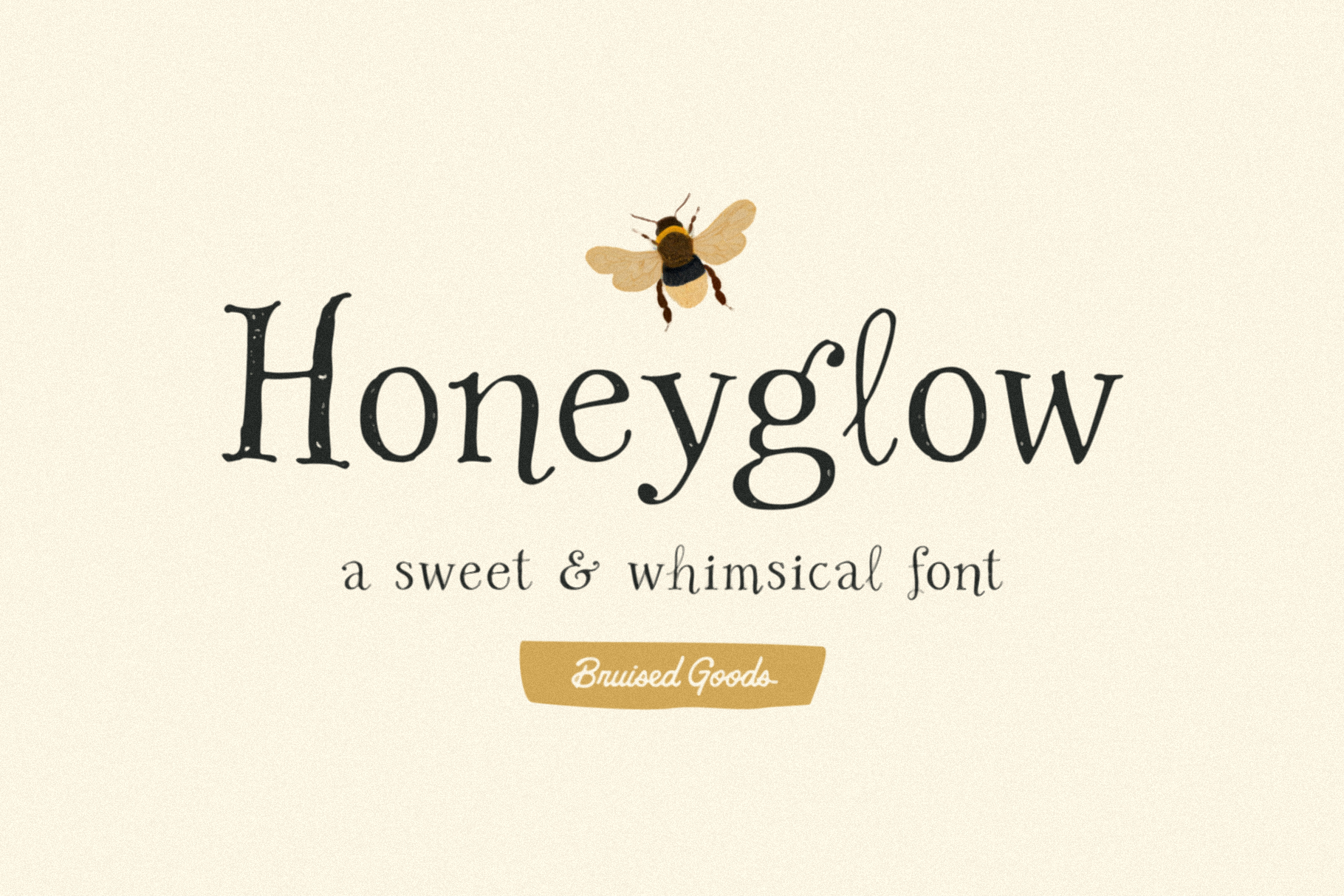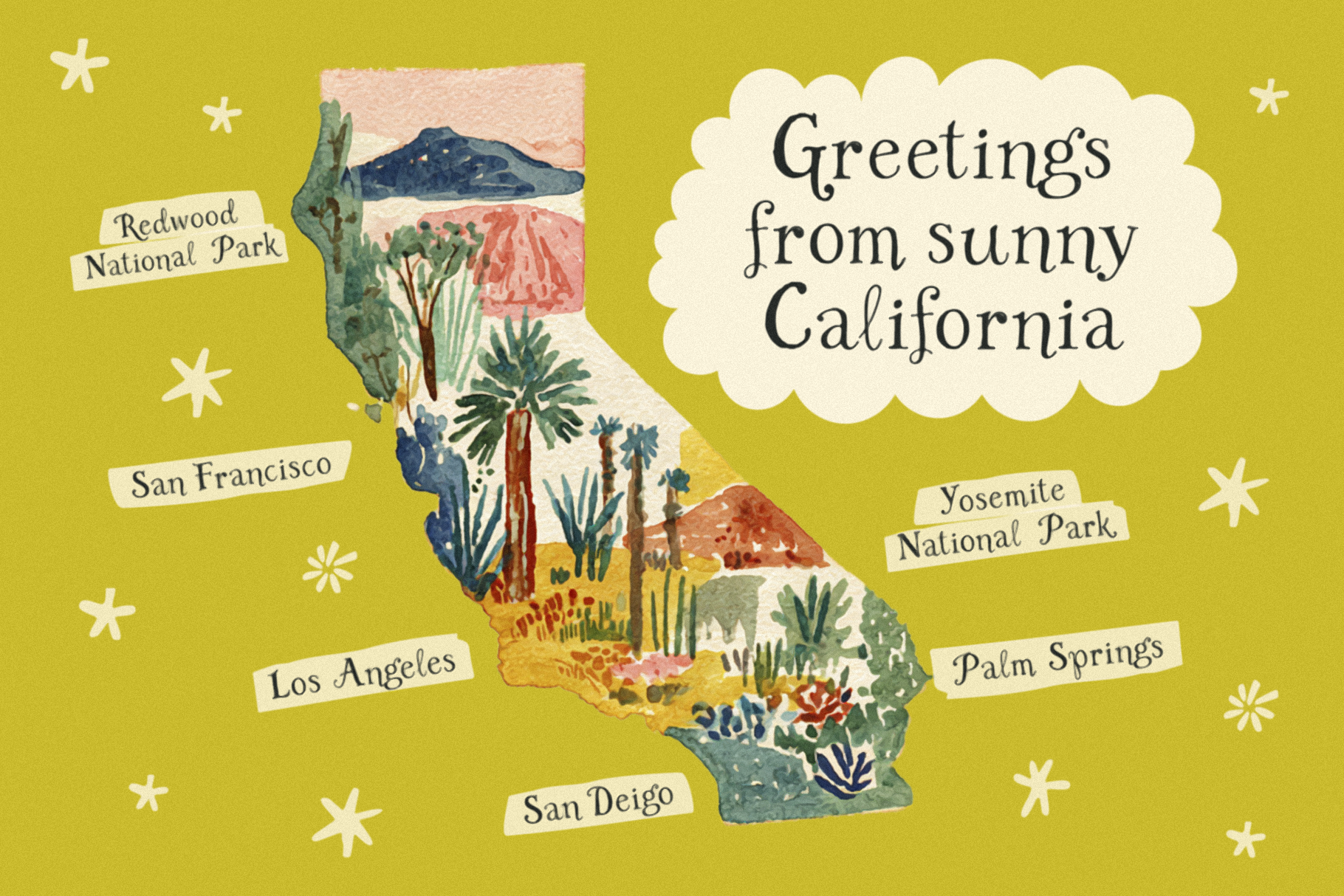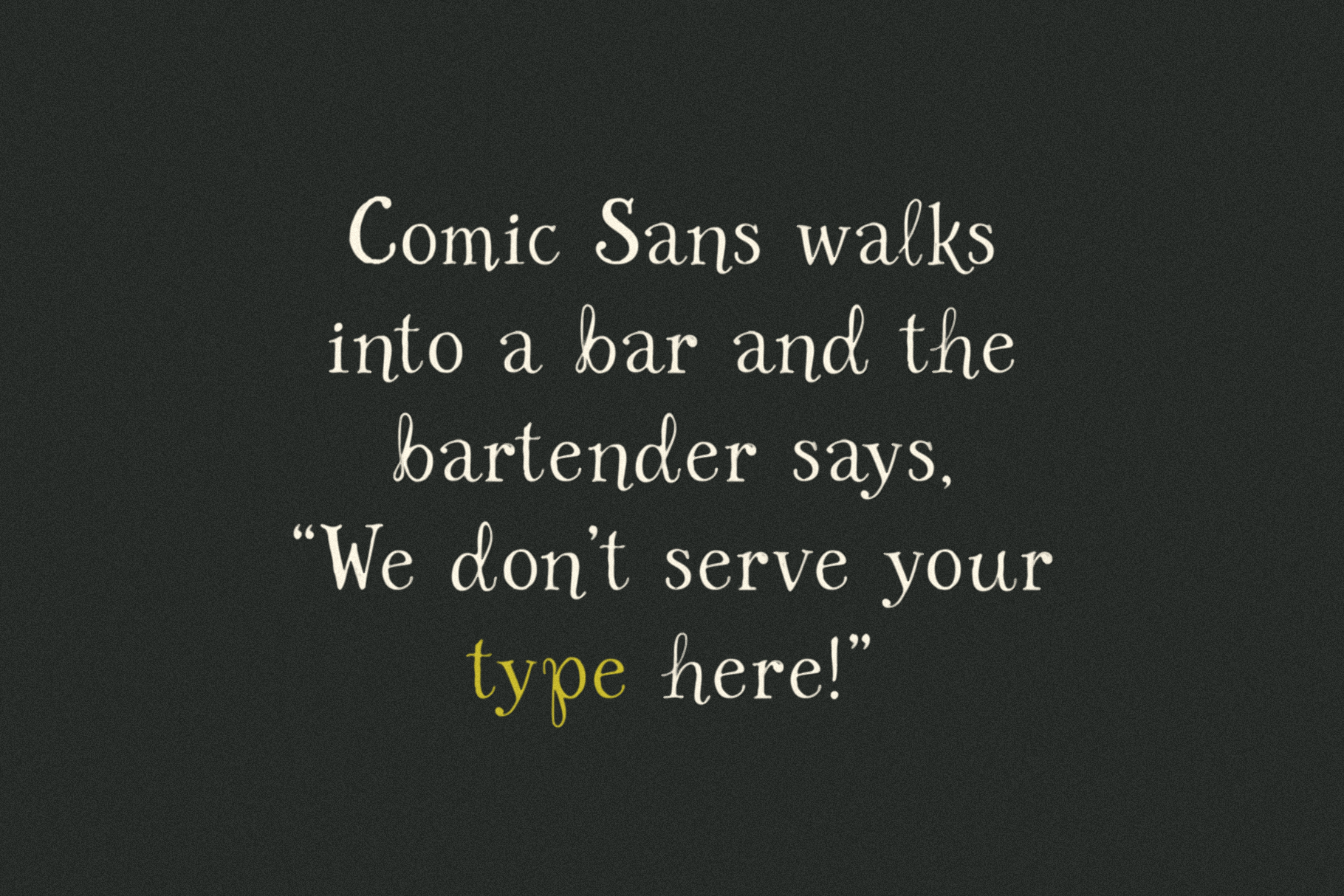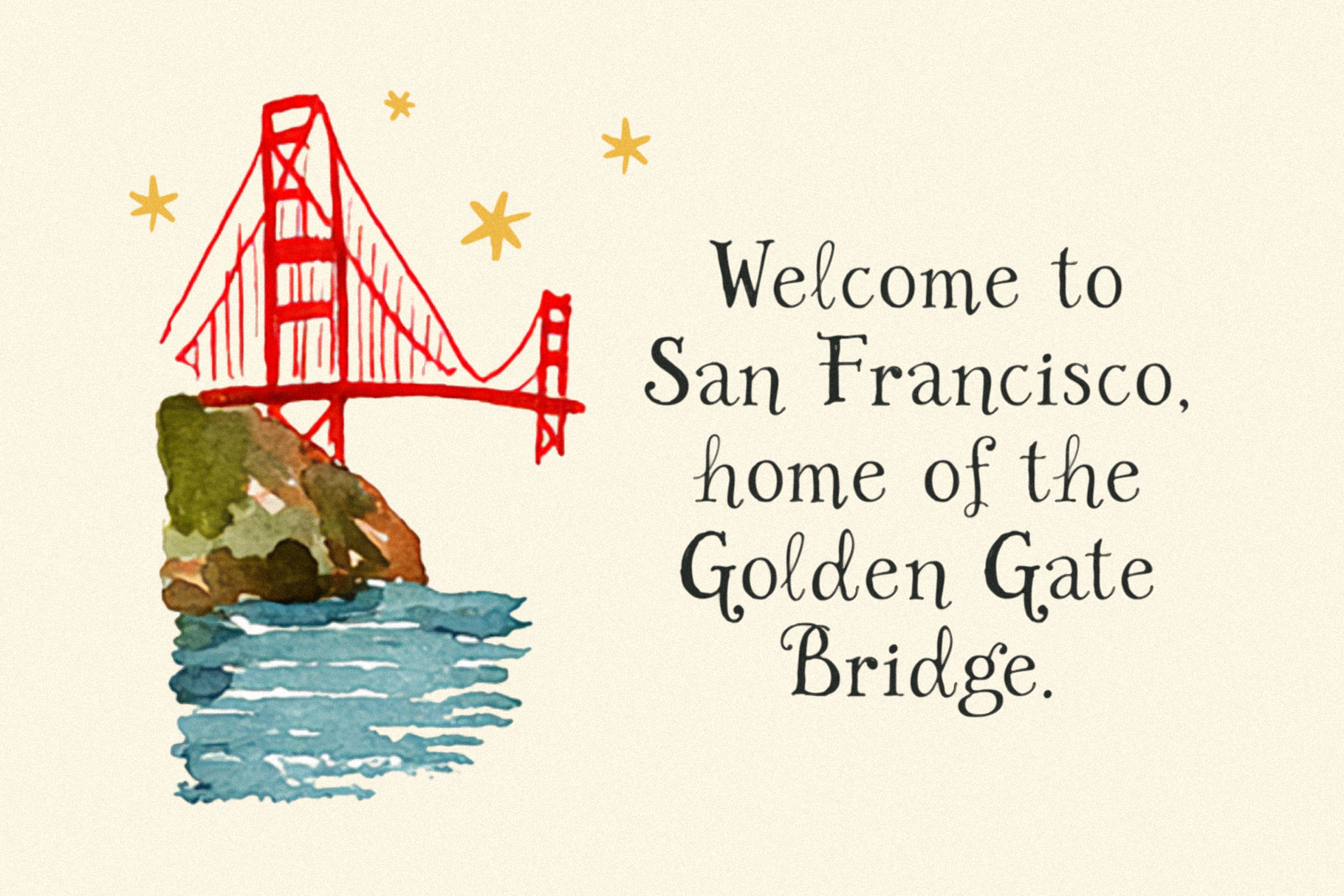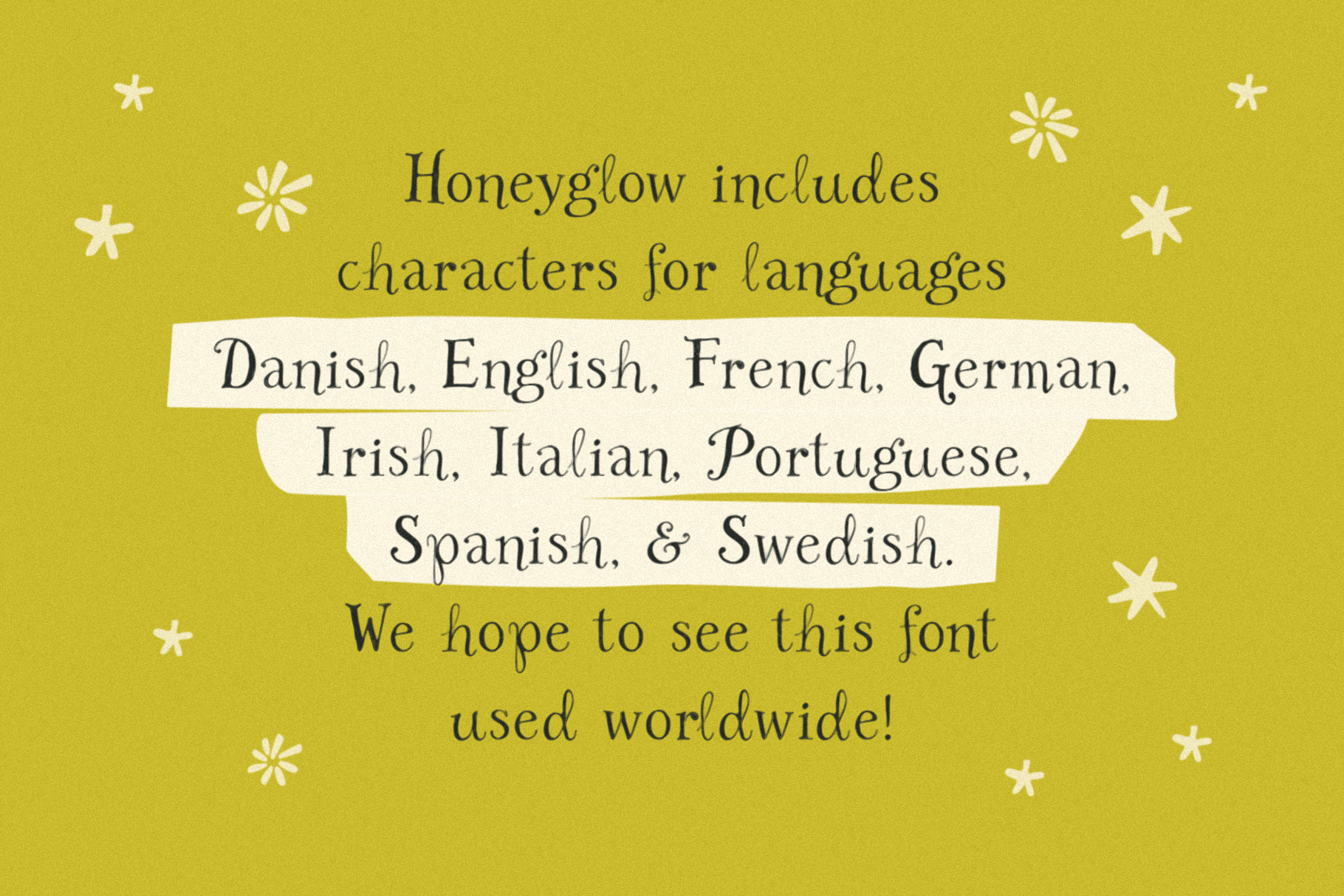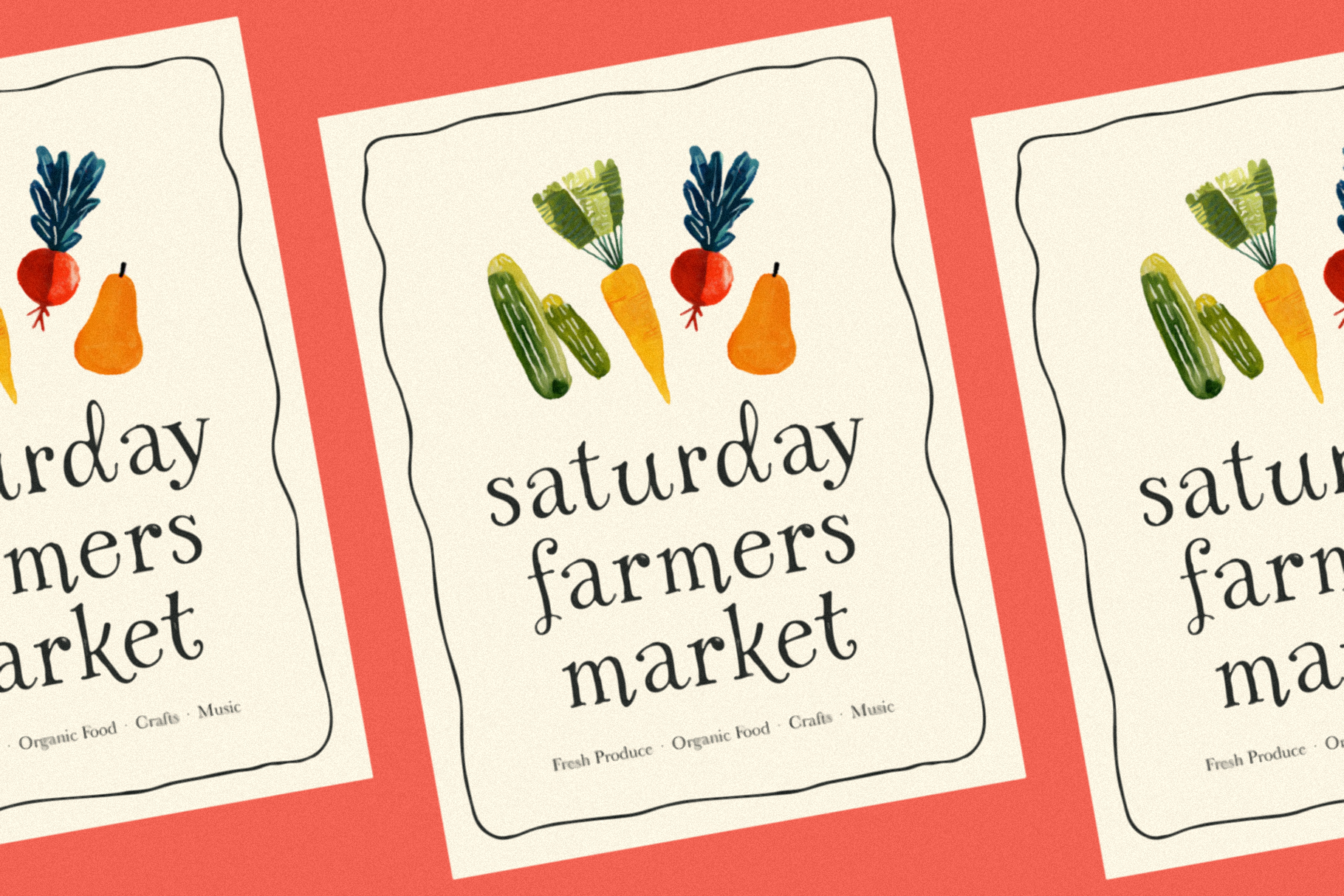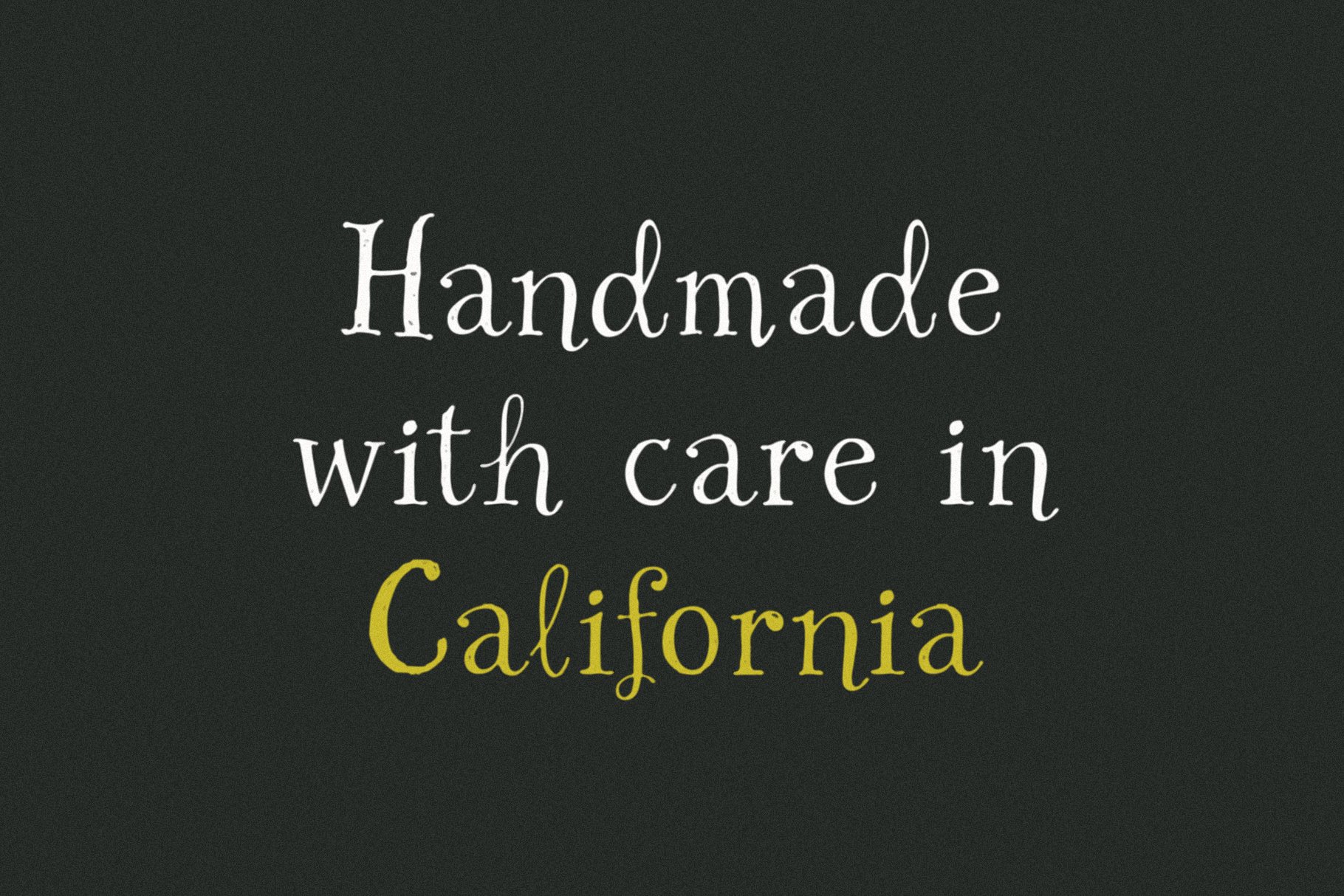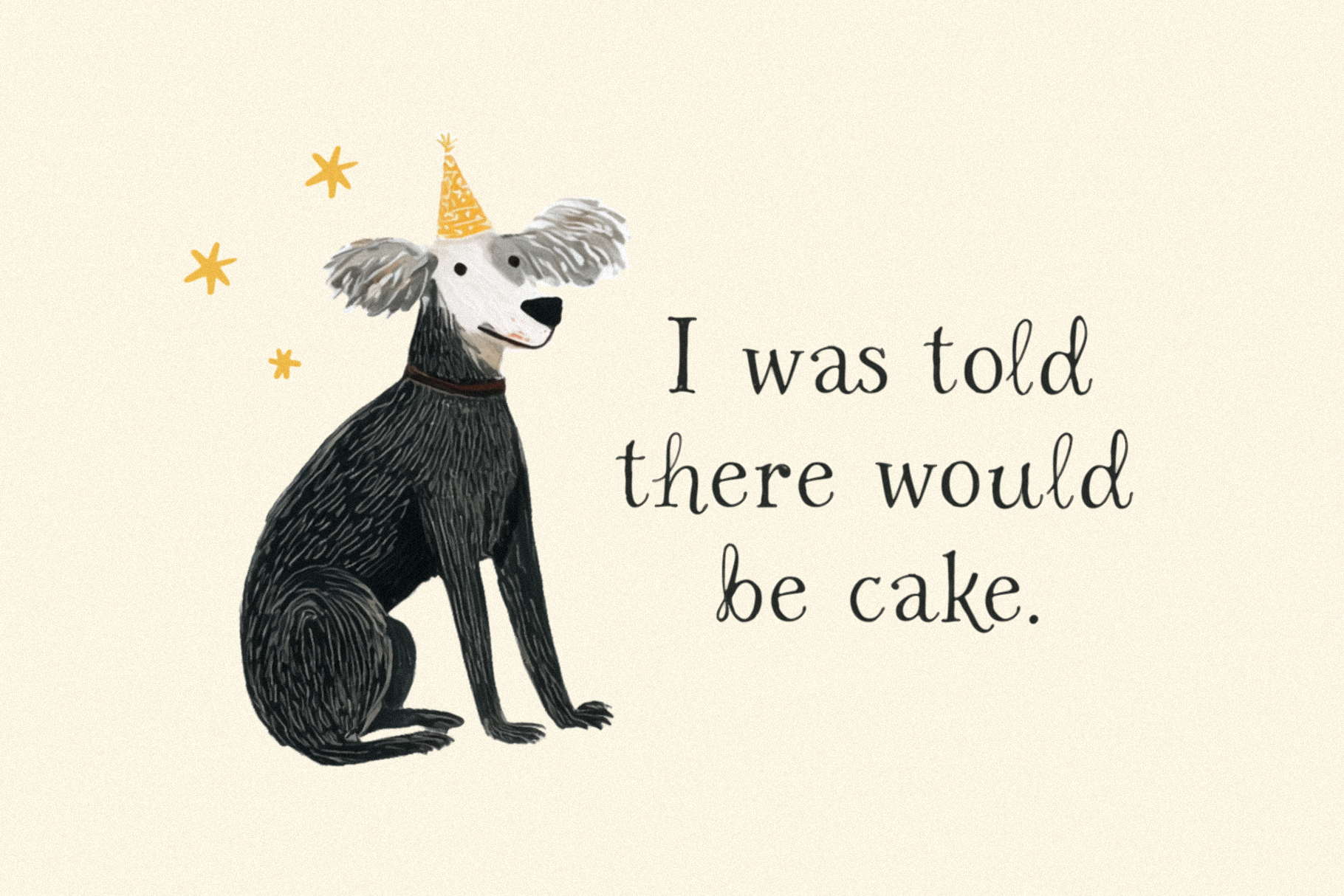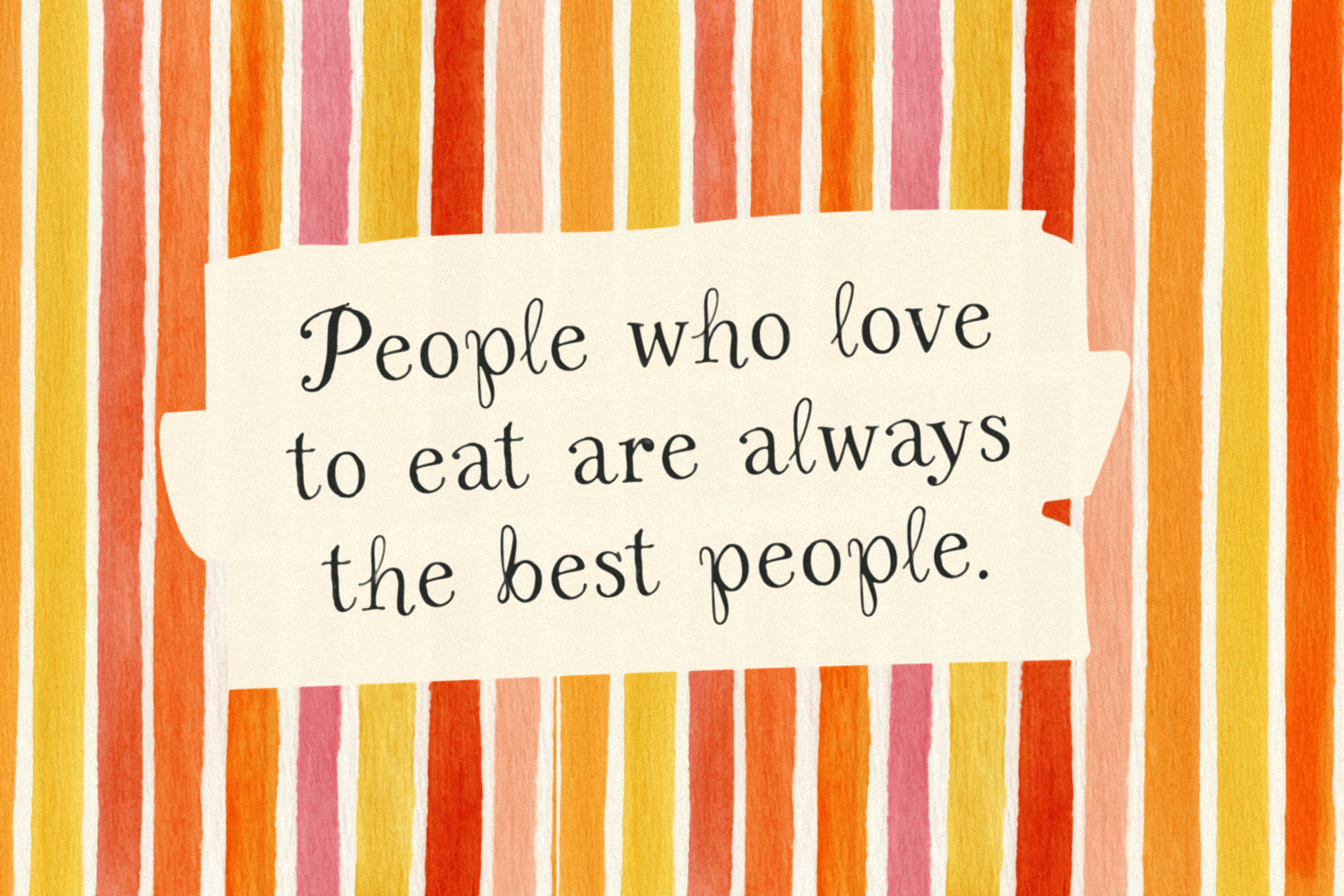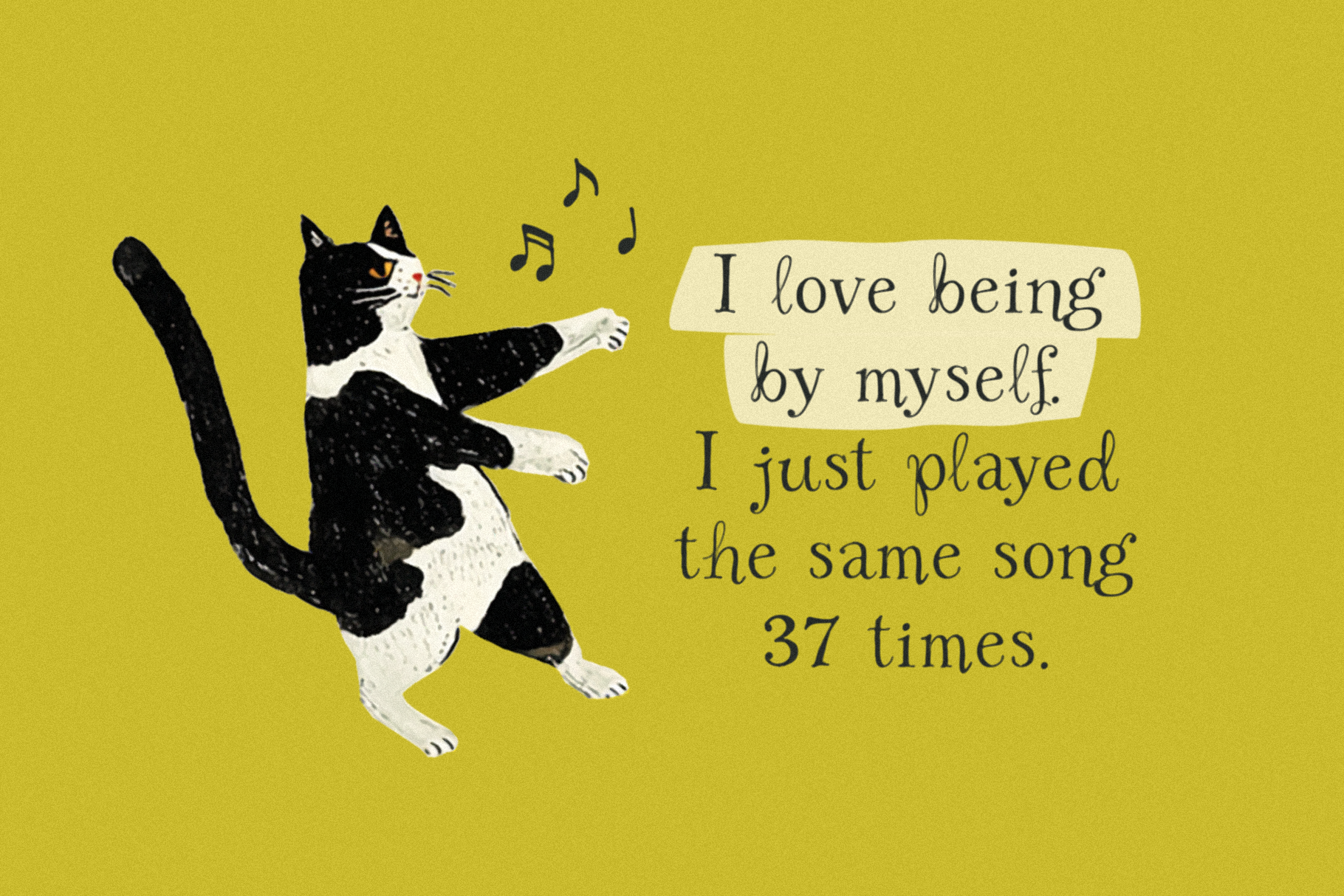
Honeyglow
HONEYGLOW – A sweet & whimsical serif font. Handcrafted by Bruised Goods in California.
154 Glyphs Total: Uppercase and Lowercase Characters, Numbers, Symbols, and Punctuation.
Language Support: Danish, English, French, German, Irish, Italian, Portuguese, Spanish, Swedish, and Swiss German.
Includes Alternate Glyphs (for common double letters).